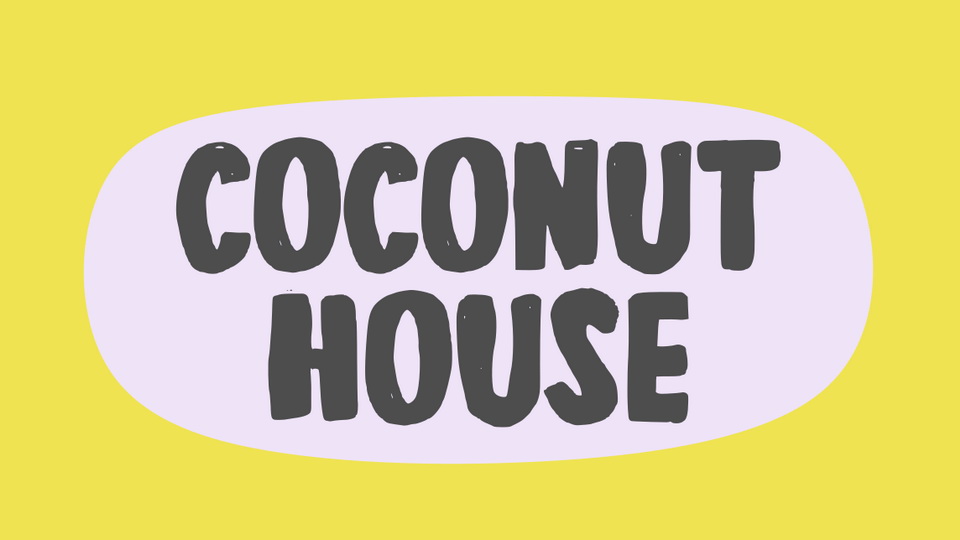
Feb 9, 2025Script & HandwrittenCoconut House Font Coconut House is a fun and playful hand lettered brush font. It perfectly fits for comics, games, kid’s products, fun projects and more. Font DetailsDesigned by: Joe LetterWebsiteLicense: Free for commercial use Download Coconut House FontFile size: 19.62 KBCreated: February 16, 2025Updated: February 16, 2025 Download Explore similar fonts Licobe Font Waloh Font Penlinea Font Sunset Shore Font Coastal House Font Casa Lienta Font # Brush# Cartoon# Funny# Handwriting# Rounded More fonts by Joe LetterPlanet Garlic FontRandom Boys FontRain Shaman FontDummy Brush FontReadiculous FontJust A Moment FontCherry Cocktail FontSimple Breakfast Font